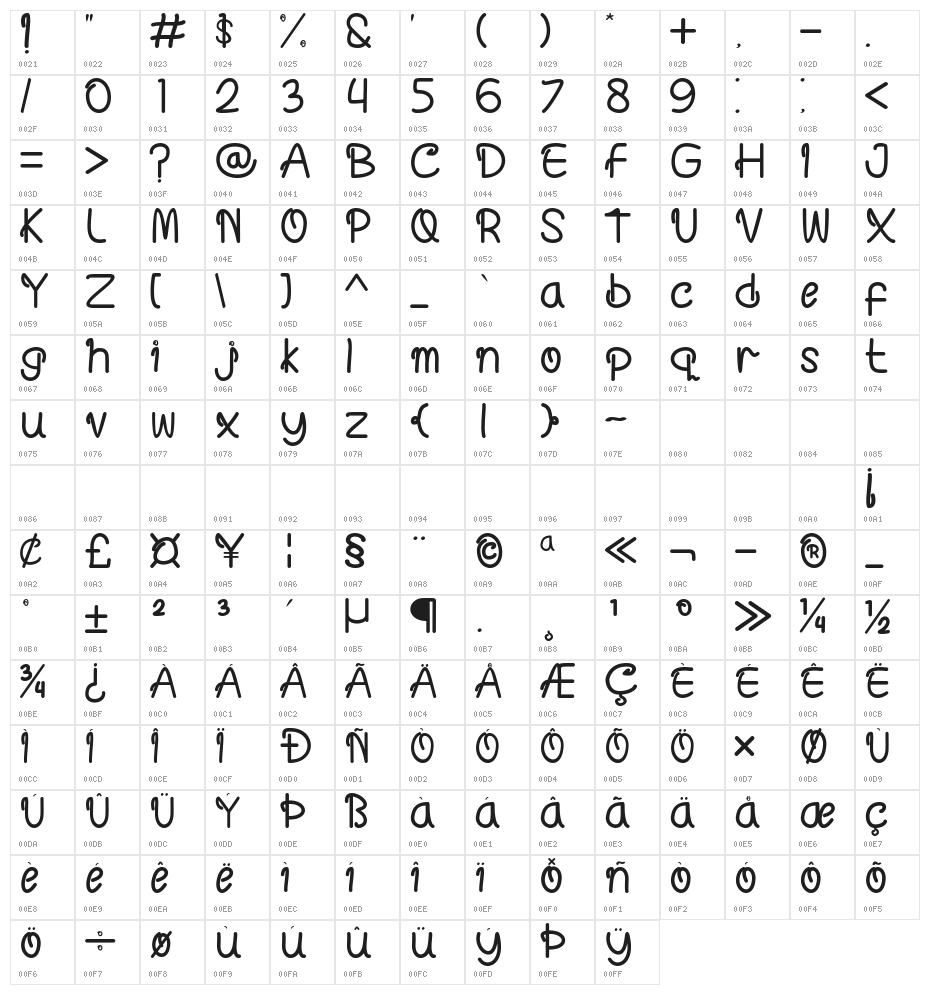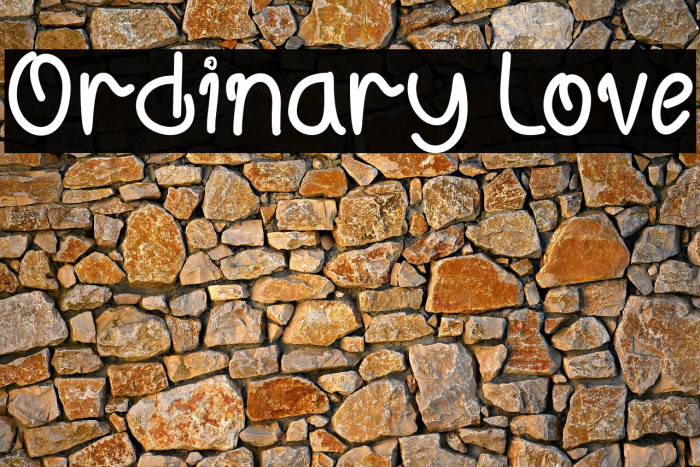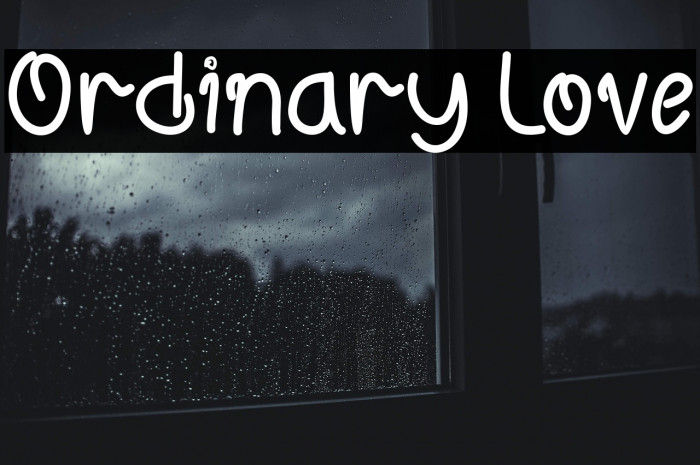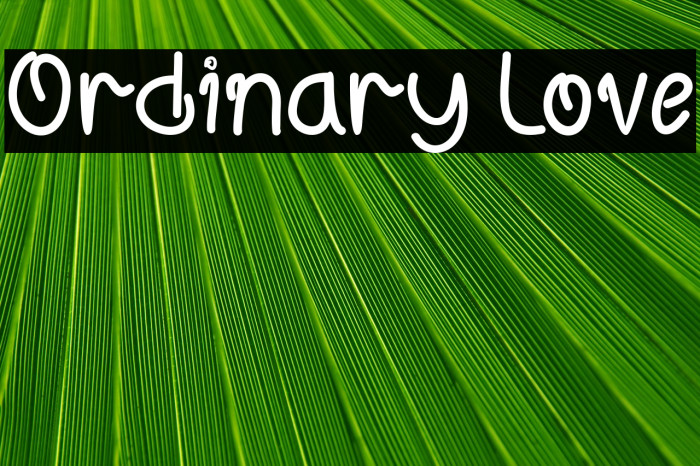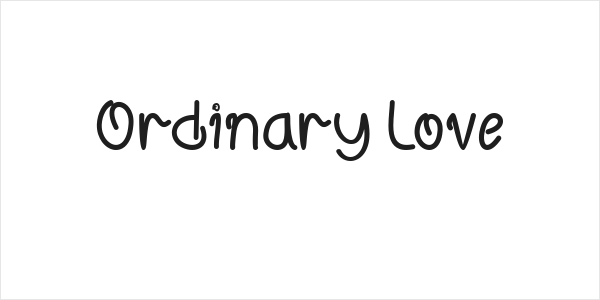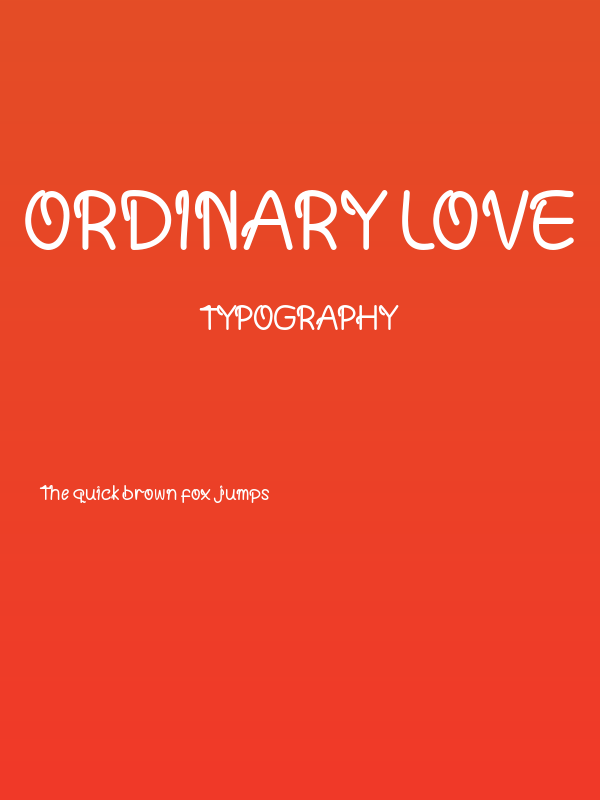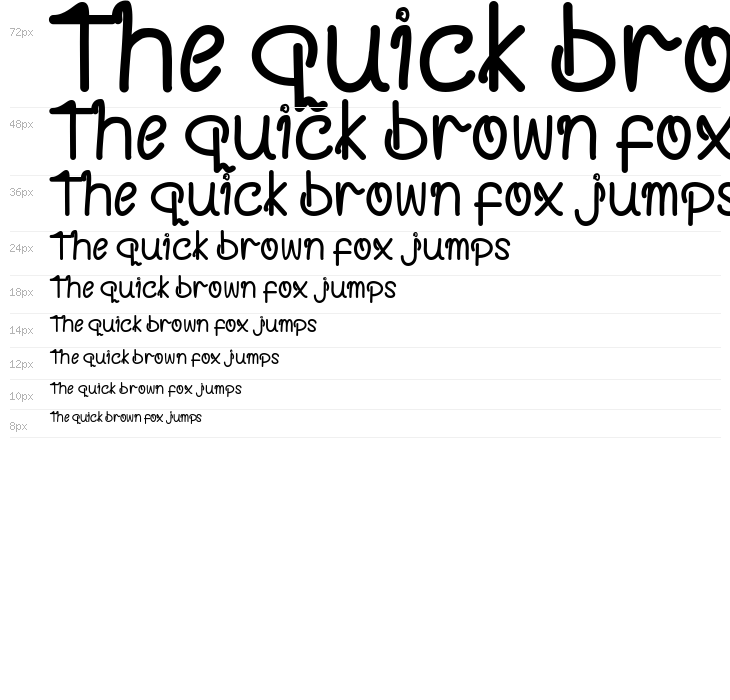
Ordinary Love Font
Ordinary Love Description
A playful, rounded handwritten font with a casual and friendly appearance.
| Use Case | Headlines, Informal text |
| Proposed Projects | Greeting cards, children's books, casual invitations. |